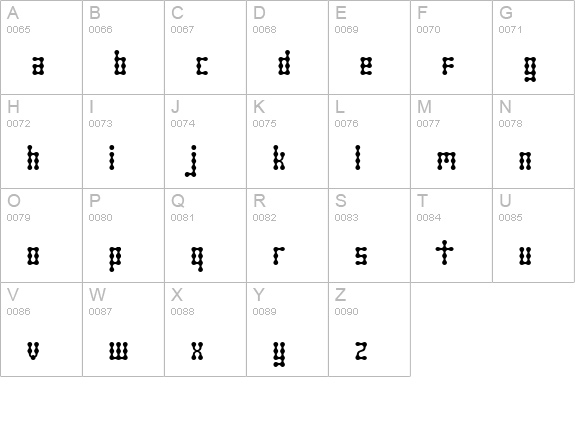
Skeletor Stance Font Details
Introducing the mesmerizing Skeletor Stance font, a unique and captivating typeface that will make your designs come alive with its bold and daring presence. This font is the perfect choice for those seeking a striking and edgy look, as it boasts a distinct skeletal structure that adds a touch of intrigue to any project. With its sharp angles and finely crafted details, Skeletor Stance commands attention and exudes a sense of strength and power. Its characters are meticulously designed to create an eye-catching visual impact, making it the ideal font for headlines, logos, posters, and more. Whether you're working on a grunge-themed design, a horror movie poster, or a heavy metal album cover, this font is sure to leave a lasting impression. What sets Skeletor Stance apart is not just its striking design, but also the fact that it is available for free. Yes, you read that right! This incredible font can be freely downloaded from FontsMarket.com, allowing you to unleash your creativity without any constraints. Don't miss out on the opportunity to add Skeletor Stance to your font collection. Its versatility and distinctive style make it a must-have for designers, artists, and anyone looking to make a bold statement. Download it today and let your imagination run wild with the endless possibilities this font has to offer.